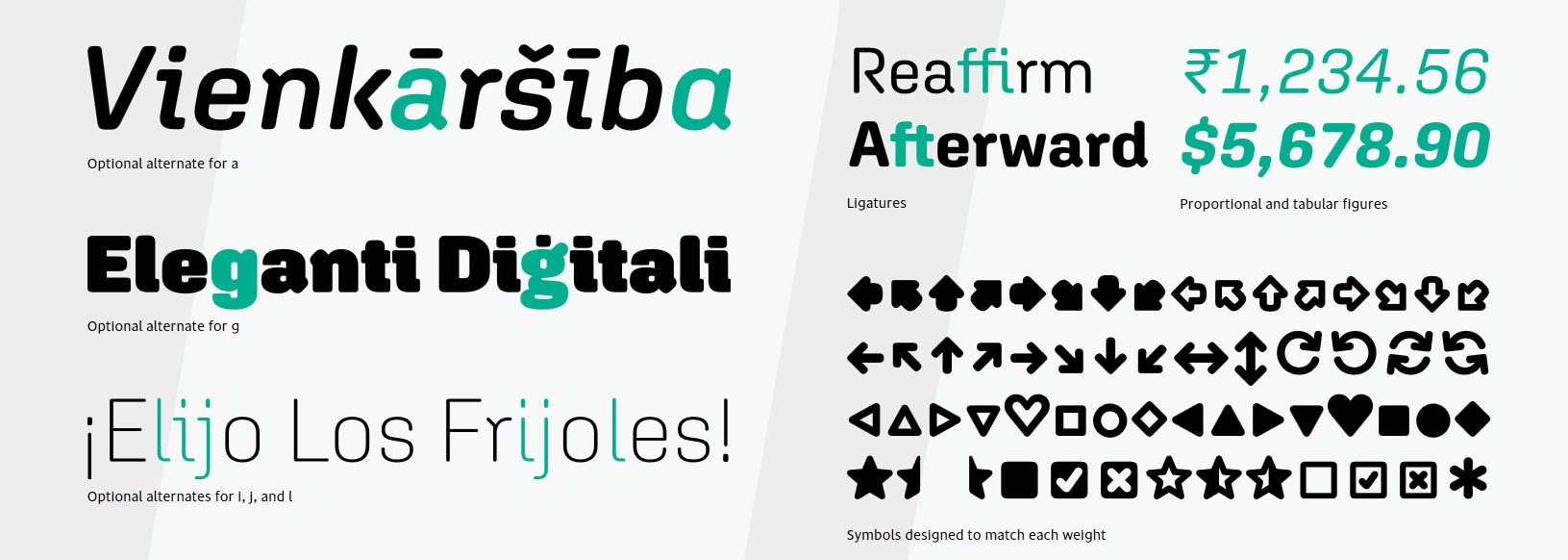
Aglet Sans Font
This Aglet Sans Font is perfect for footwear brand communications, athletic shoe marketing, sports equipment packaging, fitness apparel designs, running gear promotions, sneaker store signage, athletic performance materials, sports technology interfaces, active lifestyle branding, and precision athletic applications.
What makes this Aglet Sans Font exciting is its precise functionality that captures the essential detail and performance-focused engineering of athletic footwear excellence. The font features clean letterforms with functional characteristics that convey technical precision, athletic performance, and detailed craftsmanship. Its functional character and detail-inspired design make it ideal for brands seeking to communicate athletic precision, performance excellence, and technical detail in sports and fitness markets.
The Aglet Sans Font family includes thin through black weights with athletic alternates, performance variants, and precision flourishes. This comprehensive functional font family provides designers with technical typographic tools to create precise compositions while maintaining the athletic character essential for sports brands and performance-focused communications.
Athletic brands and sports equipment companies consistently choose Aglet Sans Font Free Download for projects requiring authentic athletic appeal and performance credibility. This font's distinctive functional character perfectly captures the technical precision and athletic excellence that resonate with audiences who appreciate sports performance, athletic innovation, and brands that embody precise engineering and functional design.
The precise construction of Aglet Sans Font showcases expertly engineered letterforms with athletic proportions that ensure exceptional functionality across all sports applications. Its technical appearance and performance character create memorable impressions while maintaining the readability necessary for effective athletic communication and sports performance materials.
Professional designers appreciate how Aglet Sans Font brings immediate athletic authenticity and technical precision to brand communications. The font's functional nature allows organizations to communicate performance excellence and athletic innovation while maintaining the professional quality necessary for effective positioning in sports equipment and athletic performance markets.
The performance appeal of Aglet Sans Font makes it particularly effective for brands emphasizing athletic precision, sports innovation, and functional design. Its technical character resonates strongly with audiences who appreciate athletic performance, sports technology, and brands that represent the essential details and precise engineering of athletic excellence.
Whether developing branding for athletic footwear companies or creating materials for sports performance brands, Aglet Sans Font Free Download provides the precise typographic foundation that athletic brands need to communicate their technical excellence, performance precision, and the functional detail that defines athletic innovation and sports performance achievement.